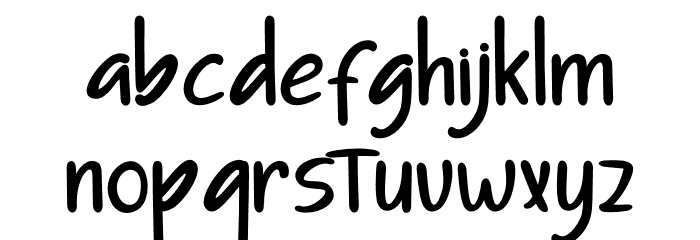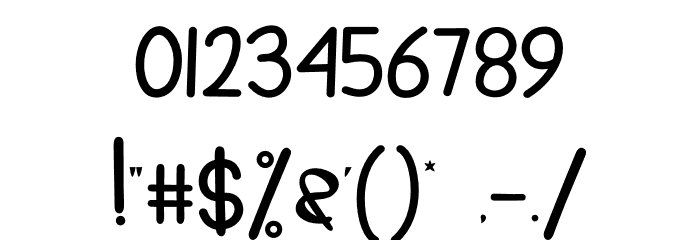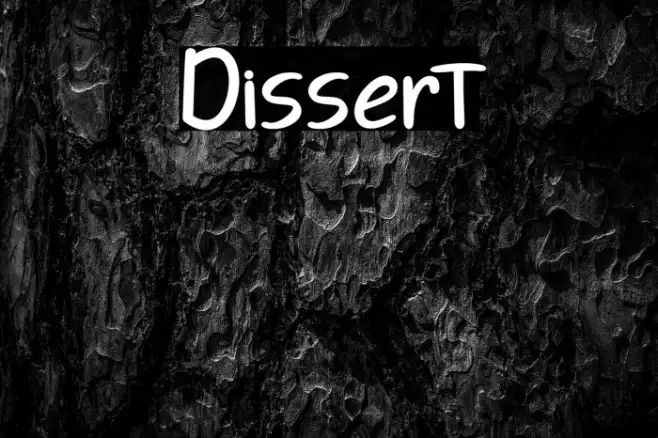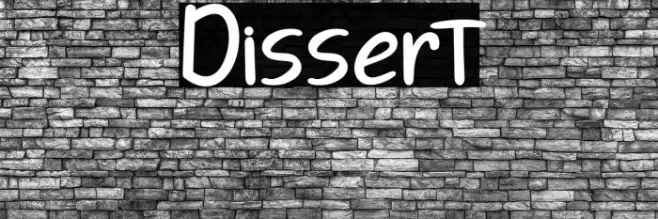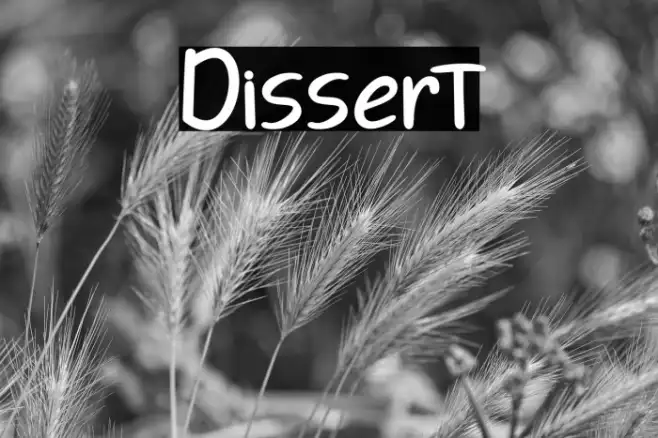
Dissert Font
This font features a playful and casual handwritten style, characterized by its smooth, rounded edges and slightly irregular strokes that give it a friendly and approachable appearance. The uppercase letters are bold and prominent, while the lowercase letters maintain a consistent flow with a slight slant, enhancing the informal look. Numbers and special characters are designed to match the overall aesthetic, ensuring a cohesive appearance across different uses. The font's design is versatile, making it suitable for a variety of creative projects where a personal touch is desired.
A playful, handwritten font with smooth, rounded edges and a casual style.
- Proposed Projects: Ideal for greeting cards, invitations, children's books, and casual branding projects.
- Overall Style: Casual, Playful
- Use Case: Headlines, Informal text, Creative projects